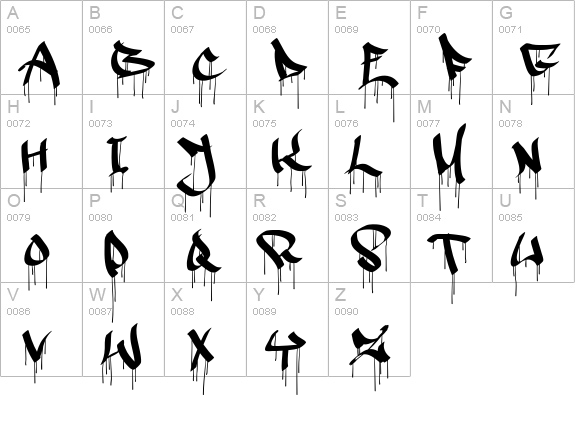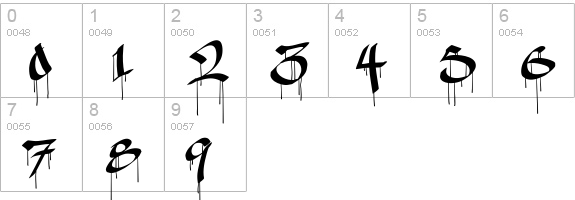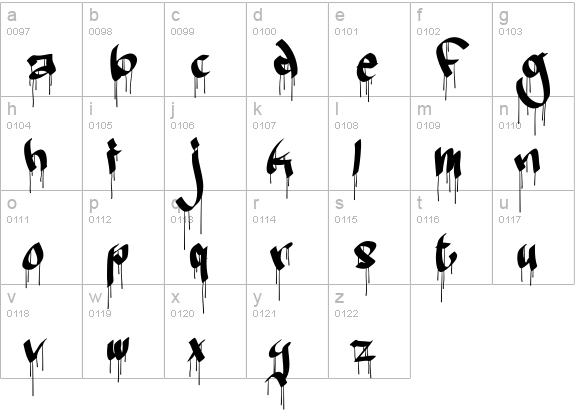
Introducing the captivating and bold Ruthless Drippin TWO font, a true epitome of modernity and edginess. With its sharp lines and aggressive style, this font exudes a sense of power and strength that will surely make your designs stand out from the crowd. Ruthless Drippin TWO is perfect for projects that require a touch of rebellion and a dash of attitude. Whether you're designing posters for a music festival, creating eye-catching logos for streetwear brands, or even crafting edgy social media graphics, this font will effortlessly elevate your designs to new heights. What sets Ruthless Drippin TWO apart is its unique blend of versatility and boldness. The letters are meticulously crafted, featuring dripping-like elements that add a touch of dynamism to each character. This font is not afraid to break the rules, making it the ideal choice for designers who want to make a statement. But here comes the best part – Ruthless Drippin TWO is available for free! That's right, you can freely download this exceptional font at FontsMarket.com. We believe that creativity should never be limited, and by offering this font for free, we're empowering designers to unleash their full potential without any financial constraints. So, why wait? Grab your copy of Ruthless Drippin TWO today and let your imagination run wild. Whether you're a seasoned professional or just starting your design journey, this font will undoubtedly become an invaluable asset in your creative arsenal. With Ruthless Drippin TWO, your designs will leave a lasting impression that is both ruthless and unforgettable.